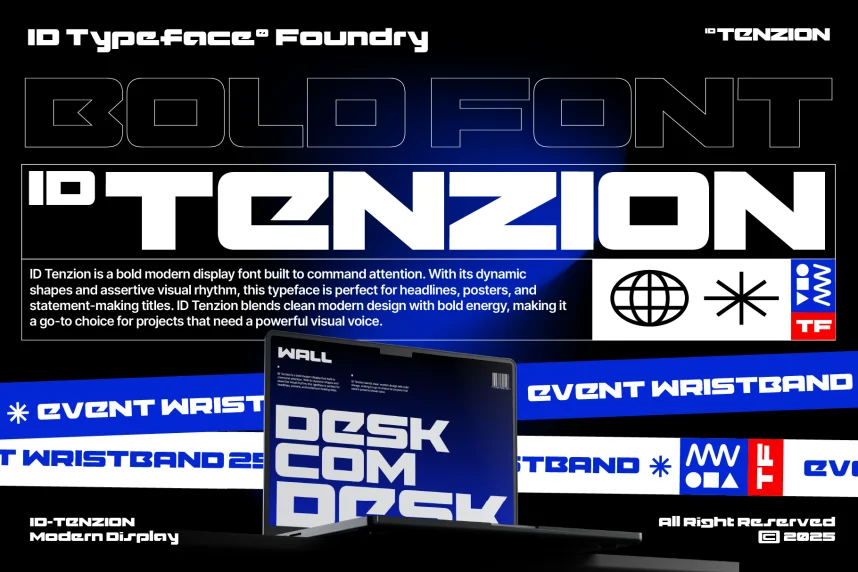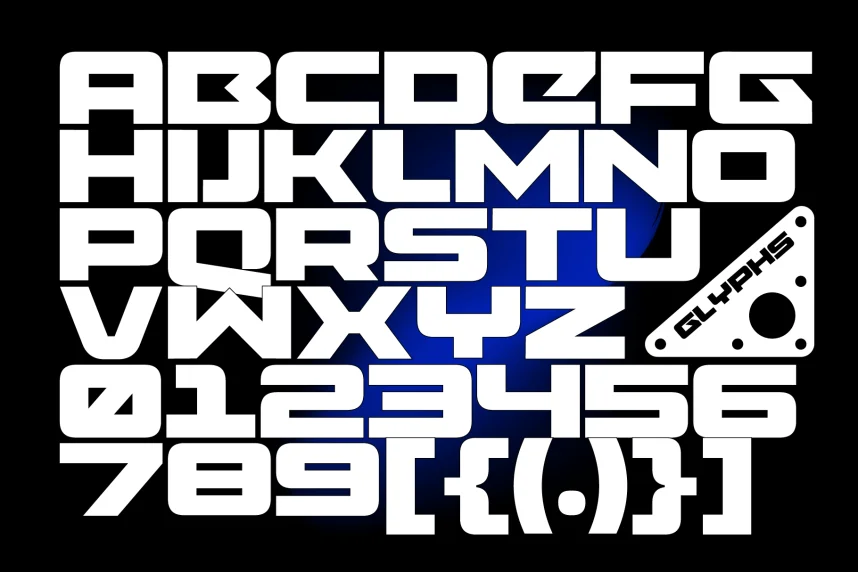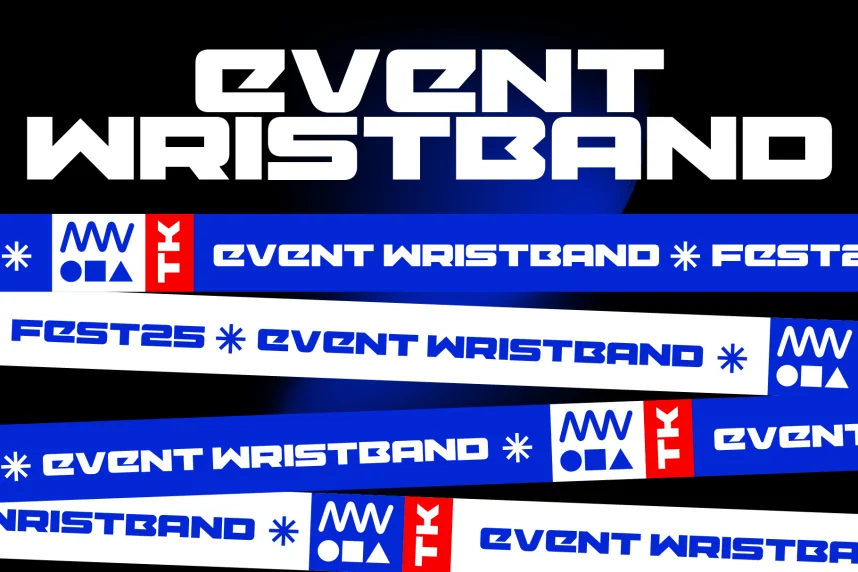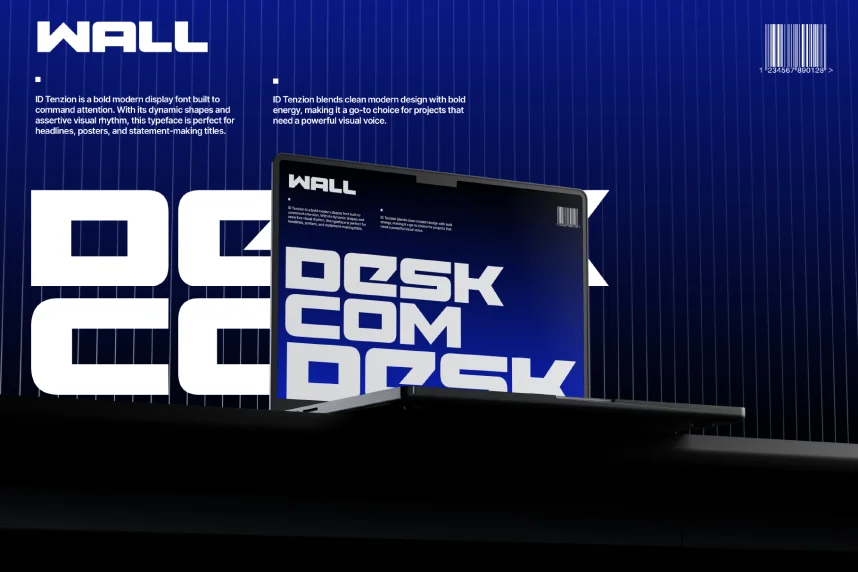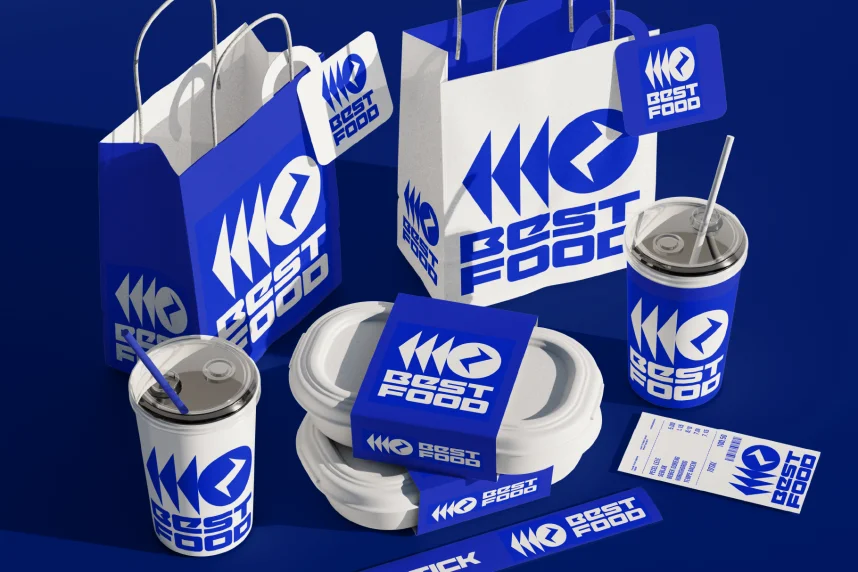
ID Tenzion Font addresses the need for strong visual emphasis in headings and display text without sacrificing letter clarity. Designers use display fonts like this when hierarchy and impact matter.
ID Tenzion Font is a display typeface featuring bold strokes, defined shapes, and controlled spacing. The letterforms show clear structure with noticeable weight contrast, helping text stand out at large sizes while remaining readable.